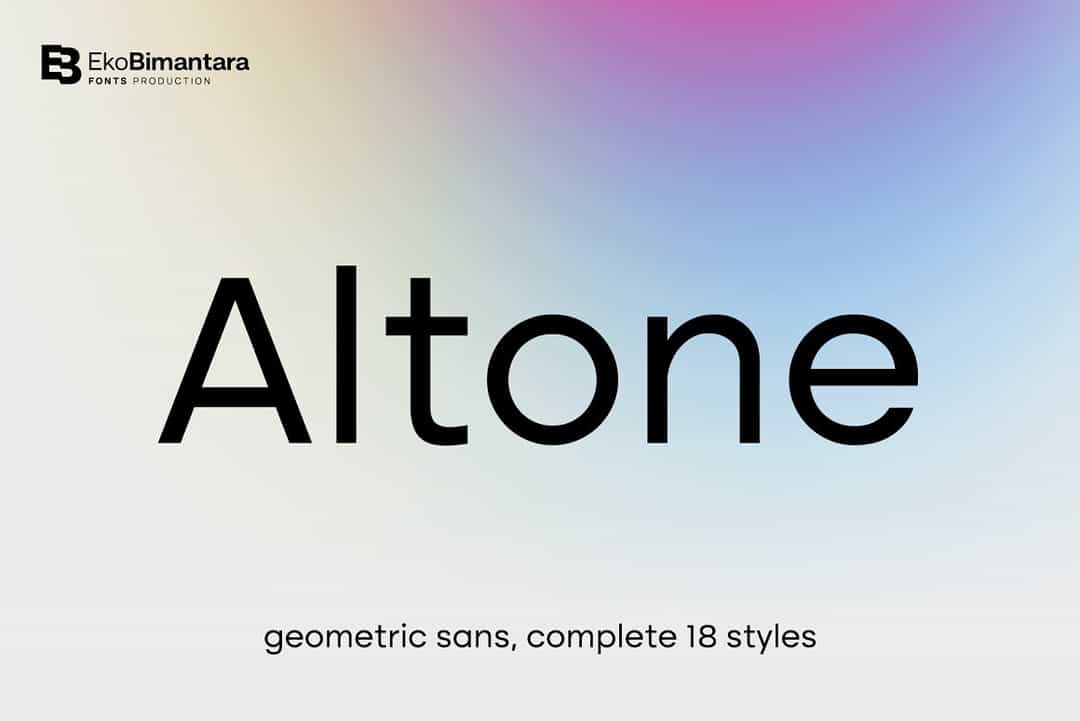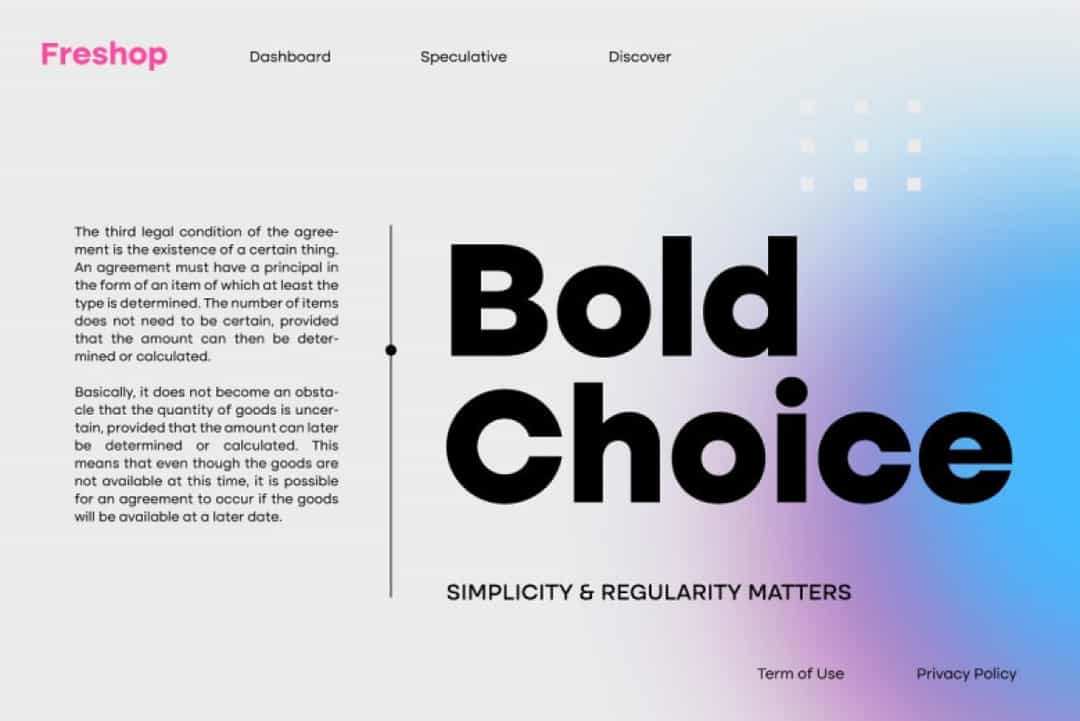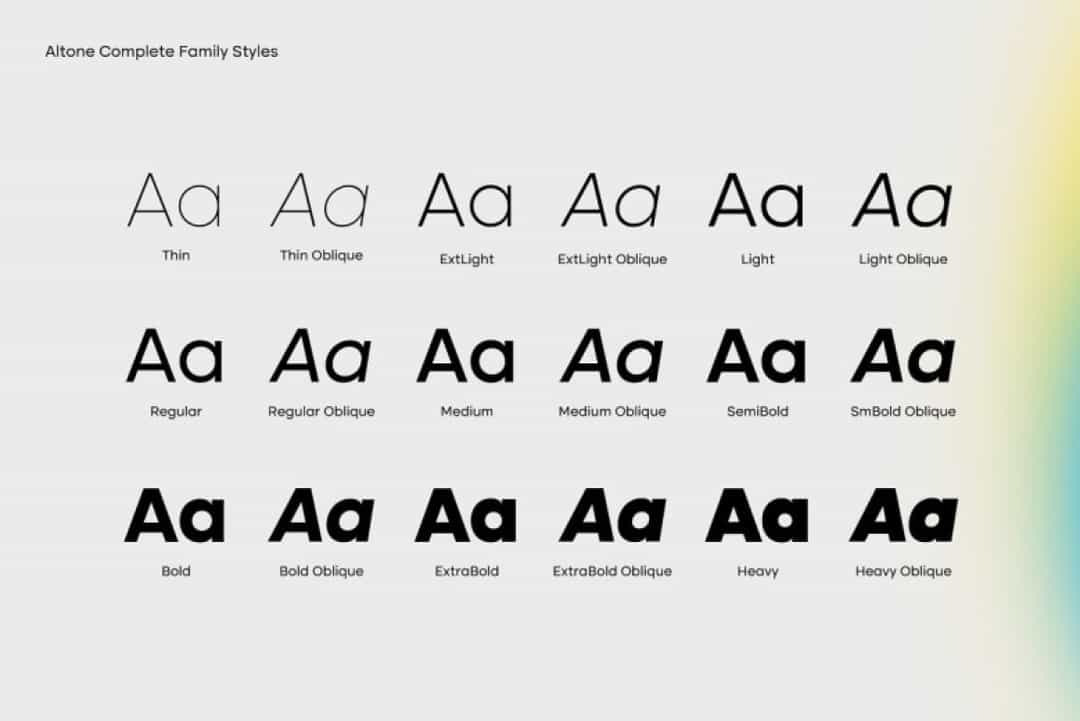
Altone Font Family was developed with regularity in mind and features traditional geometric sans serif typefaces designed to be easily read by their readers, offering wide ranging usage possibilities with bold, simple characters that stand out. Grotesk letterforms tend to evoke memories of Bauhaus more so than the classic Bauhaus style.